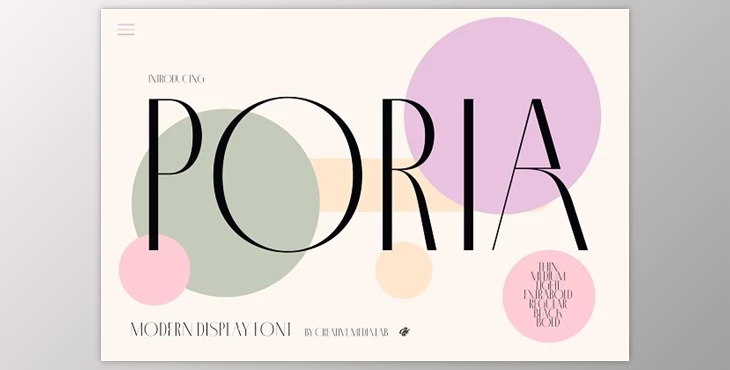
Poria – Modern Display Font: Poria can be described as modern and contemporary, with seven weight choices, stunning alternatives, and a plethora of unique monogram ligatures. The distinctive feature characteristic of Poria is the O, the letter O, which is broad when compared to other characters, and it is modern and appealing.
Poria can be appropriate for a name or logo for fashion labels, cosmetics magazines, etc.